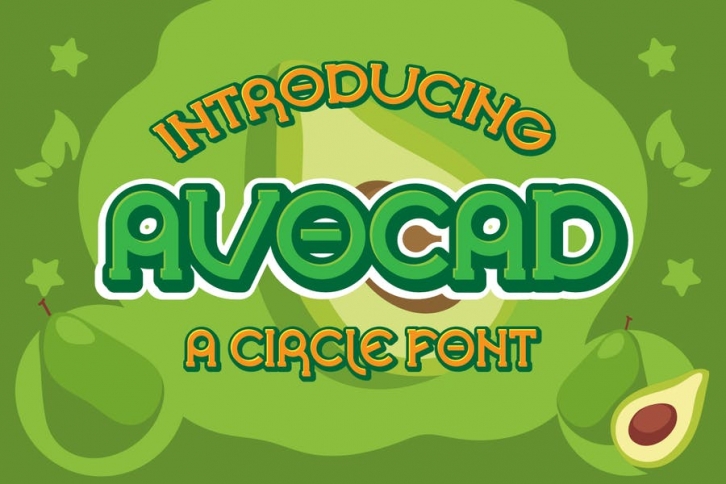
AVOCAD font is our new item that suitable for your Templates logo or community logo.
Great for Logo, Sticker, Jersey, Invitation Card, Brochure, etc.